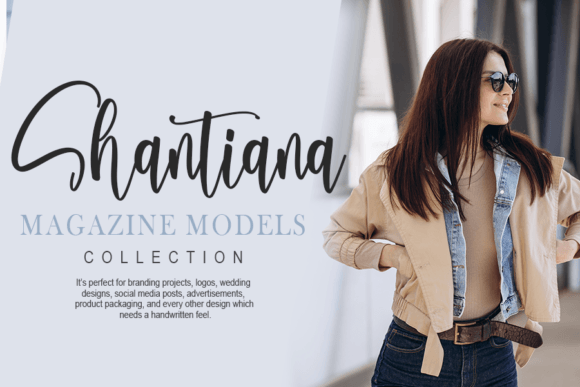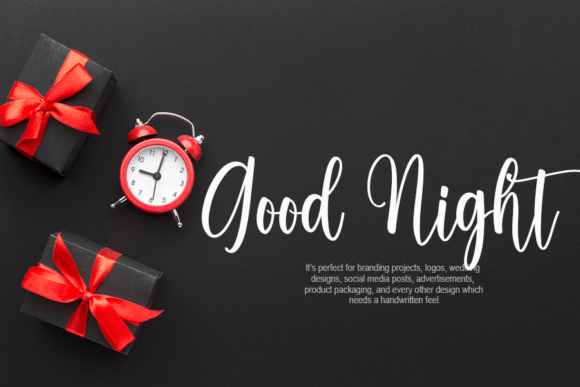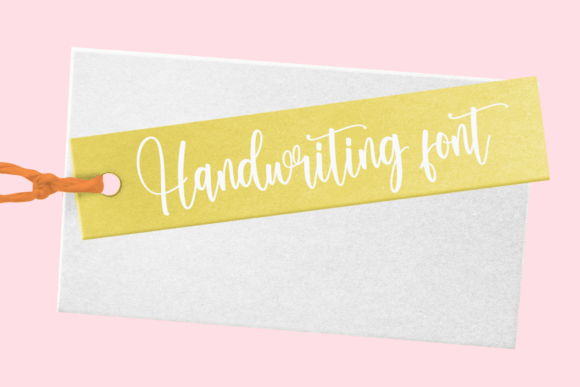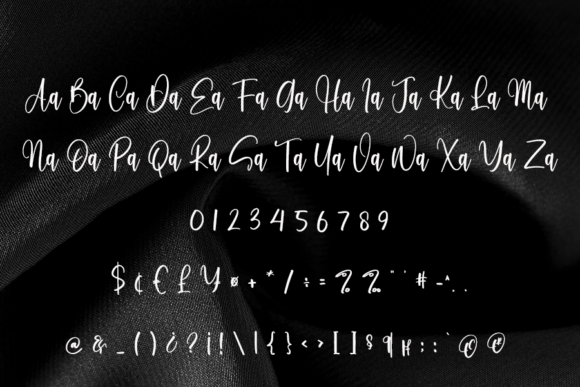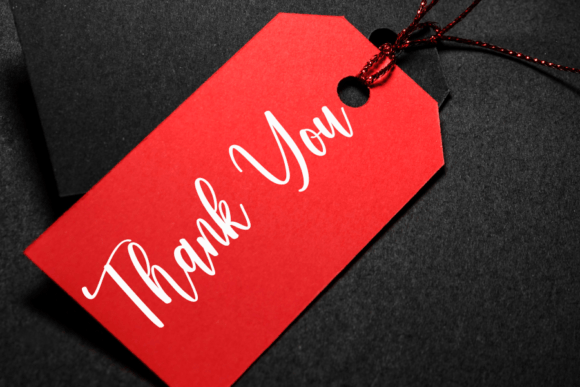
Discover the Elegance of Beautiful Font: Elevate Your Designs with a Timeless Touch
In the world of typography, few fonts capture the essence of elegance and sophistication as beautifully as the Beautiful Font. Described as a neat and beautiful handwritten font with an elegant touch, it has become a favorite among designers and crafters looking to add a touch of class to their projects. In this article, we’ll dive into the unique characteristics of the Beautiful Font, explore its uses, and provide tips on how to make the most of this stunning typeface.
The Distinctive Charm of Beautiful Font
Beautiful Font is more than just a typeface; it’s an expression of style and refinement. Its incredibly distinct and timeless style sets it apart from more generic fonts, making it perfect for projects that demand a high level of sophistication. Whether you’re working on a branding project, creating wedding invitations, or designing a personal blog, Beautiful Font brings an unmatched level of elegance to your work.
One of the key features of Beautiful Font is its handcrafted nature. Each letter is carefully designed to convey a sense of fluidity and grace, giving your text a personal and intimate feel. This makes it particularly effective for designs where you want to evoke an emotional response or create a lasting impression.
Despite its elegant appearance, Beautiful Font is surprisingly versatile. It can be used across a wide range of projects, from digital content to print materials. Here are some popular applications of Beautiful Font:
- Branding and Logotypes: The unique style of Beautiful Font makes it an excellent choice for logos and brand identities that require a touch of sophistication.
- Wedding and Event Invitations: Add a touch of romance and elegance to your invitations with Beautiful Font, making your event unforgettable.
- Blogging and Web Design: Stand out in the digital landscape with a beautiful and readable font that enhances the user experience.
- Packaging and Product Design: Elevate your product’s visual appeal with a font that communicates luxury and quality.
Tips for Using Beautiful Font Effectively
To truly benefit from the elegance of Beautiful Font, consider the following tips:
- Pair it with Simplicity: Let Beautiful Font be the focal point of your design. Pair it with simple backgrounds or complementary fonts to avoid visual overload.
- Experiment with Colors: While Beautiful Font looks stunning in classic black and white, don’t be afraid to experiment with colors that match your brand or design theme.
- Consider Legibility: Especially when using Beautiful Font for body text, ensure that it’s at a readable size to maintain user comfort.
- Mix and Match: Don’t hesitate to combine Beautiful Font with other typefaces to create visual interest and hierarchy in your design.
Beautiful Font is more than just a typeface; it’s a design statement. Its elegant and timeless style offers designers and crafters a unique opportunity to elevate their projects and make a lasting impression. Whether you’re a seasoned professional or a DIY enthusiast, Beautiful Font invites you to explore new dimensions of creativity and design excellence.
So, fall in love with the distinct charm of Beautiful Font and use it to create spectacular designs that speak of elegance, sophistication, and your unique style. With its versatility and timeless appeal, Beautiful Font is set to become your go-to choice for projects that demand the best.